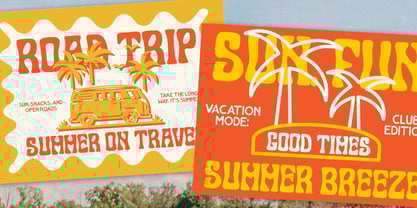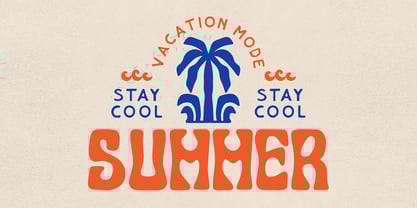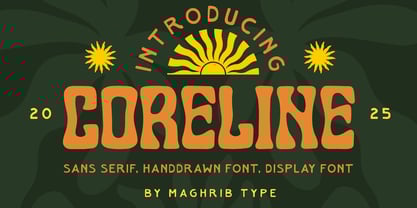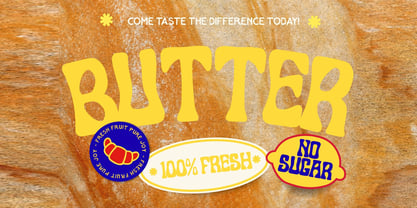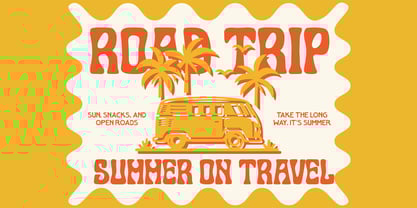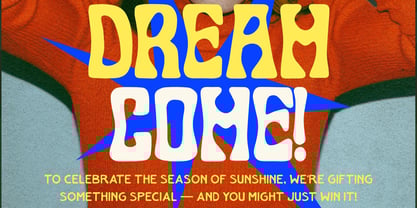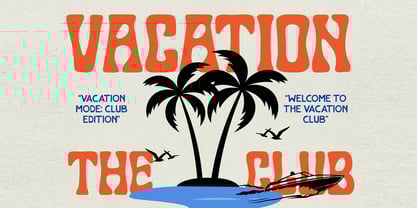
Coreline
by Maghrib Type
The Coreline Font Family was designed by Rizky Setyaludin and published by Maghrib Type. Coreline contains 2 styles and family package options.
Coreline Font Duo – Hand-Drawn Sans Serif, Bold & Thin Display Typeface Coreline is a hand-drawn sans serif font duo featuring Bold and Thin styles, crafted for designers who want a unique, organic, and retro-inspired typeface. This display font is perfect for branding, logo design, vintage posters, summer graphics, packaging, and social media templates. Its handcrafted shapes deliver a warm and natural look while keeping excellent readability. The Coreline Bold style offers strong, eye-catching characters ideal for headline fonts, logo fonts, and display designs, while Coreline Thin provides a clean, lightweight style suited for subheadings, taglines, and minimalist layouts. Both styles are optimized for digital and print use.